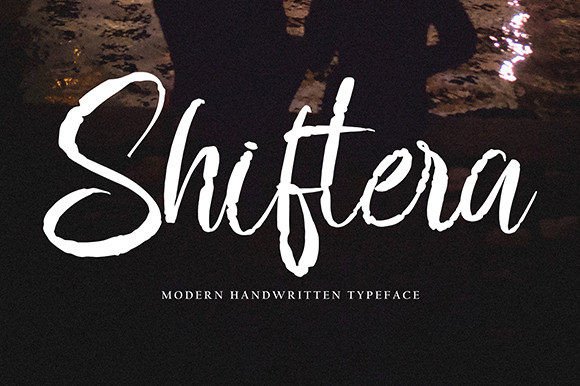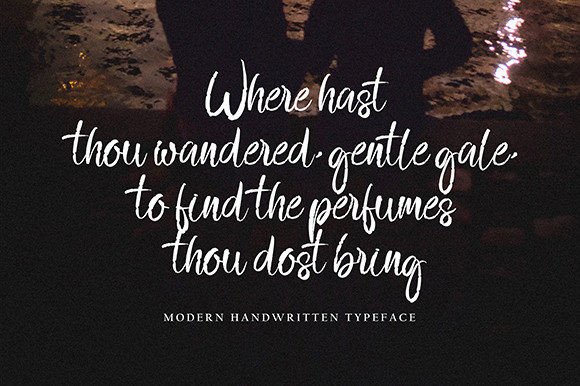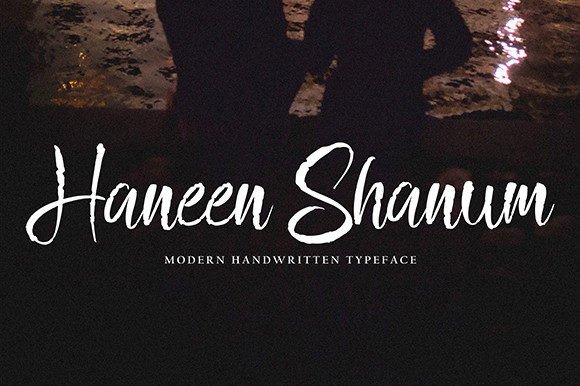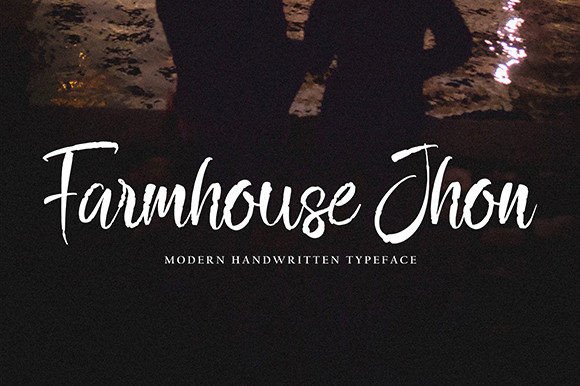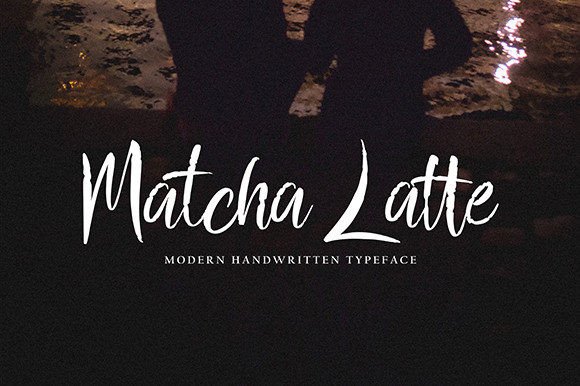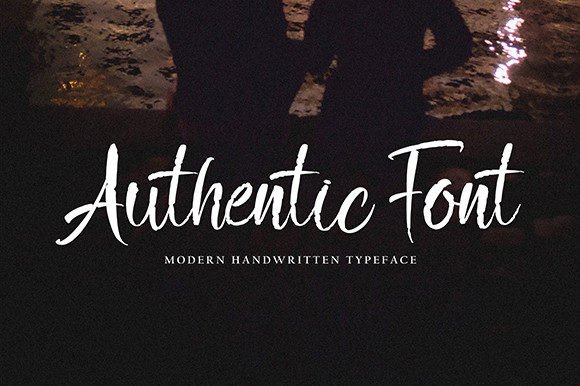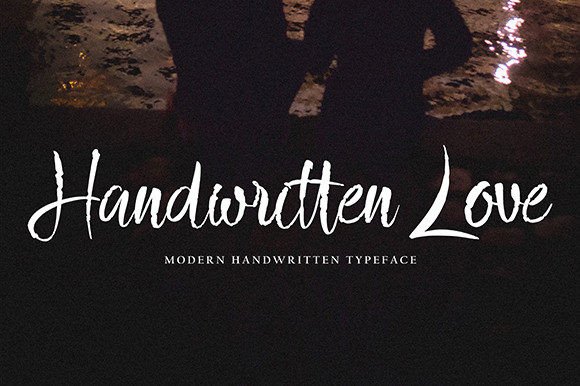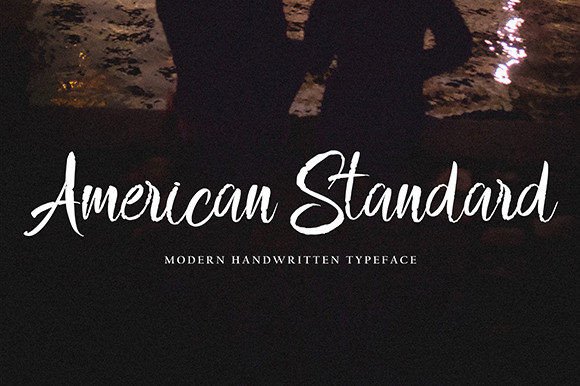
About Shiftera Font
A Touch of Elegance in Every Stroke
The Shiftera Font download brings a graceful handwritten script to your creative toolbox. Crafted with flowing curves and delicate forms, this font is the perfect choice for designers who want to add charm and elegance to their work.
Perfect for a Variety of Uses
Thanks to its timeless and balanced style, Shiftera is suitable for a wide range of projects. You can use it confidently in:
Wedding invitations and event stationery
Personal branding and logos
Social media graphics and blog headers
Packaging designs and product labels
No matter the platform, this handwritten script adds personality and beauty to your work.
Easy to Use and Fully Accessible
Designed to Inspire
If you’re searching for a font that looks professional yet feels personal, the Shiftera Font download delivers. Its smooth lines and romantic aesthetic make it a powerful design tool for projects that deserve a heartfelt, human touch.